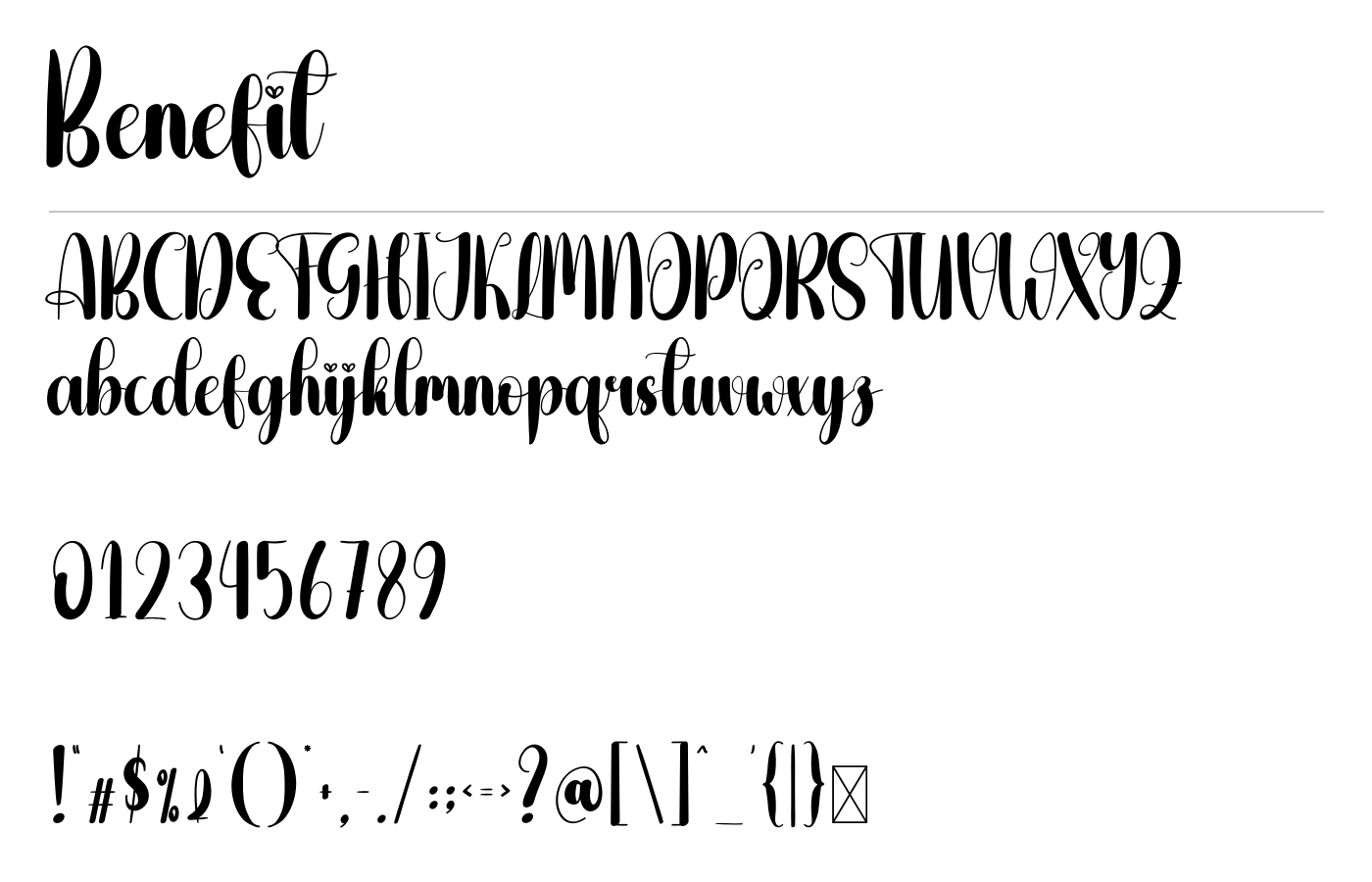
Benefit Font is a playful and elegant script typeface characterized by its tall, narrow letterforms and smooth, flowing strokes with delicate swirls and heart-shaped details. Its bold yet friendly style makes it ideal for branding, invitations, and headlines where a touch of charm and personality is desired. This font works well for fashion, beauty, and creative projects that seek a modern, whimsical, and feminine feel.
Benefit Font
About Benefit Font